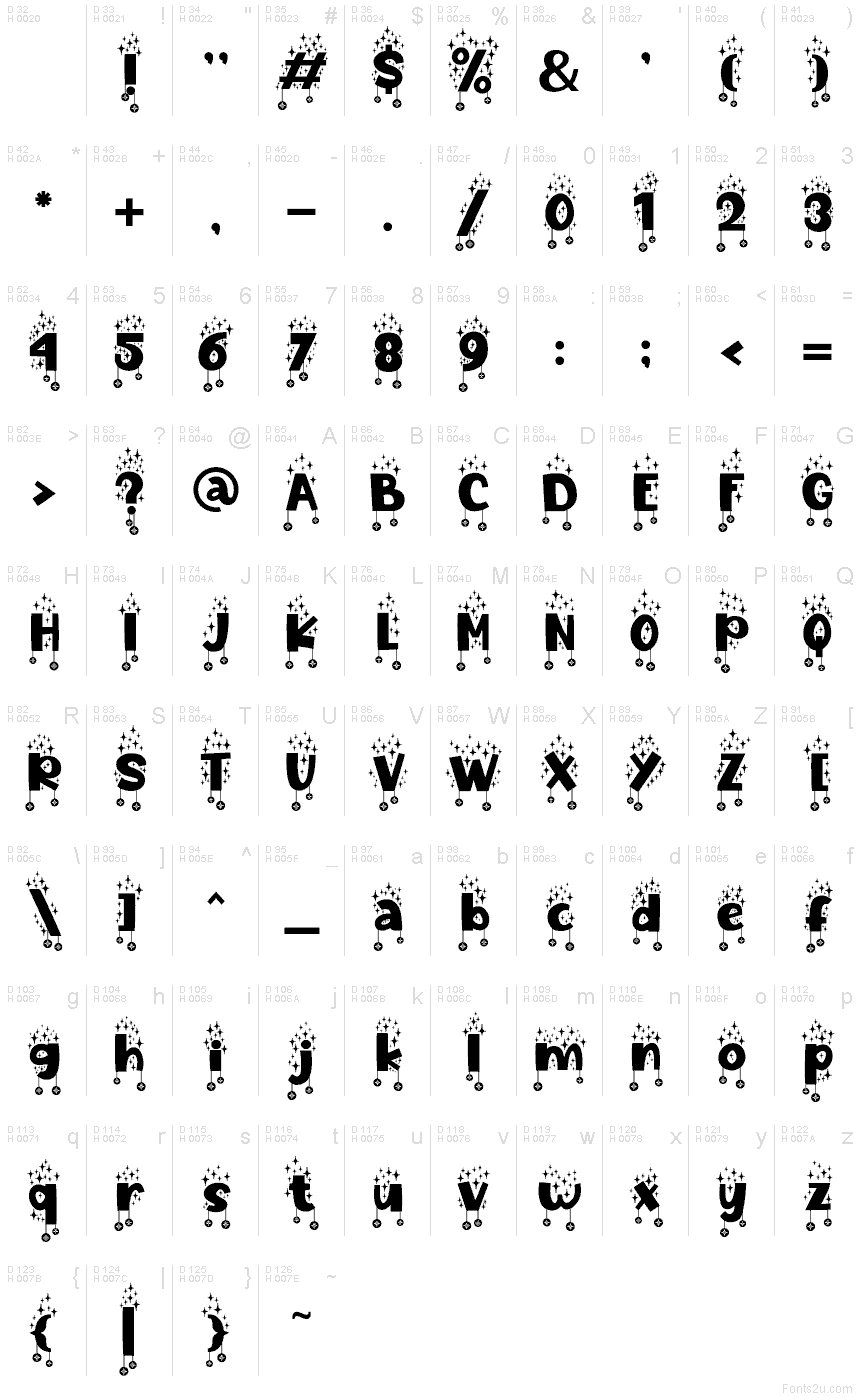
Frosty Faktur Ornament
Frosty Faktur Ornament font by PutraCetol Studio is a free decorative Christmas holiday typeface. Part of the Frosty Faktur family, it turns every word into a little celebration, with bold, rounded letters draped in dangling baubles and sparkling stars. The shapes feel chunky and cozy, like cut-out paper letters hung across a mantel, while the ornament fringe adds instant seasonal flair without needing extra graphics.
Using Frosty Faktur Ornament, you can dress up Christmas cards, party invitations, social media banners, gift tags, stickers, and festive posters in seconds. This free font shines at larger sizes where the tiny ornaments and twinkling details really pop. For readable body text, pair it with a clean sans serif and let Frosty Faktur Ornament handle the big, joyful headlines.